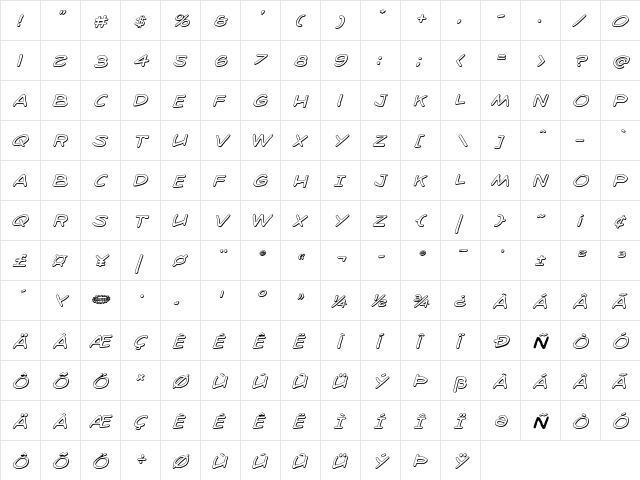
98 Bottles of Beer 3D Italic Italic
Design Context for 98 Bottles of Beer 3D Italic Typeface
98 Bottles of Beer 3D Italic is a composed and adaptable typeface that performs quietly and consistently across a wide range of design contexts. The slanted form adds forward momentum and visual energy.
Pro Tip: Use 98 Bottles of Beer 3D Italic for emphasis, pull quotes, and subheadings where its slanted energy can add rhythm to the layout.